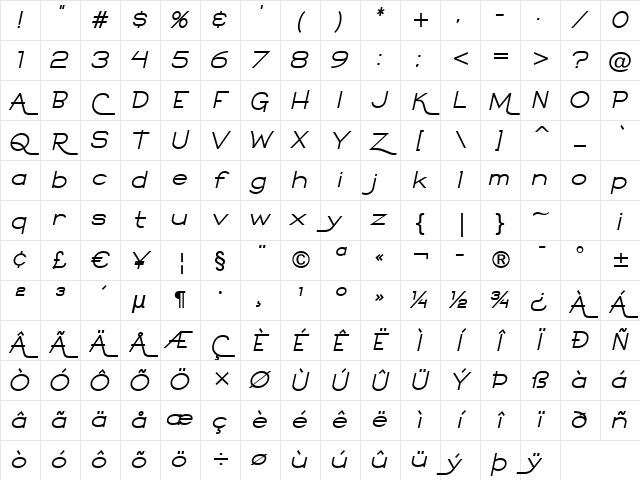
Complete Calamity Teen BTN BoldOblique glyph index. Displaying only characters natively supported by Calamity Teen BTN BoldOblique font.
Calamity Teen BTN is a composed and adaptable typeface that performs quietly and consistently across a wide range of design contexts. The slanted form adds forward momentum and visual energy. Its bold stroke weight gives it real presence on the page.